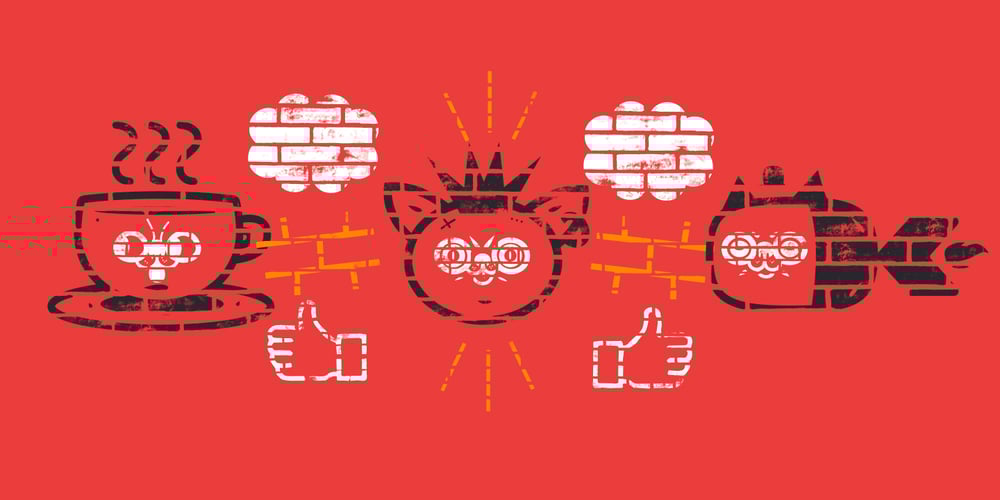
Catshape
Catshape font
Catshape Font Family was designed by Rodrigo Araya Salas and published by RodrigoTypo. Catshape contains 8 styles and family package options. Catshape is a font of dingbats, which in combinations with uppercase and lowercase you can generate multiple characters with different textures. In addition to a set of ornaments and a font called Alquitran Stencil, it was designed for different graphics. I hope you can have fun with this font!